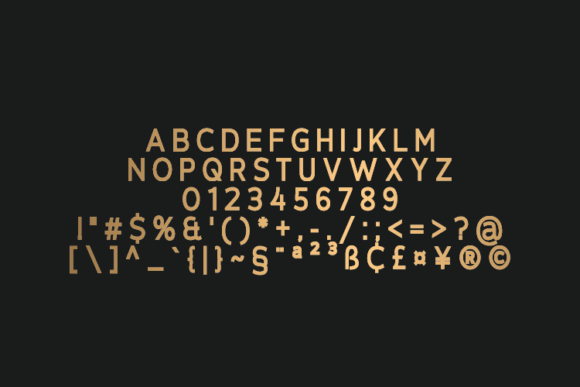
Introduction to Phenom Extra Black Font Font
Fonts play a crucial role in design, and the Phenom Extra Black Font font is a typeface that brings both character and versatility to any project. Whether you’re working on a branding project, a website, or a print design, the Phenom Extra Black Font font offers a unique style that can elevate your work.
Phenom is a fancy, contemporary sans serif font.
This amazing font includes a regular, and outline version It will complement any design need perfectly with its perfectly balanced mix of the smooth and sharp .
The Phenom Extra Black Font font is more than just a typeface – it’s a design tool that helps you communicate your message with style and clarity. Its unique character set and versatile design make it suitable for a wide range of applications, from elegant invitations to bold headlines.
With its carefully crafted letterforms and balanced proportions, the Phenom Extra Black Font font ensures readability and visual appeal across all mediums.
What makes Phenom Extra Black Font font special?
The Phenom Extra Black Font font stands out with its unique design, exceptional readability, and versatility across various design applications.